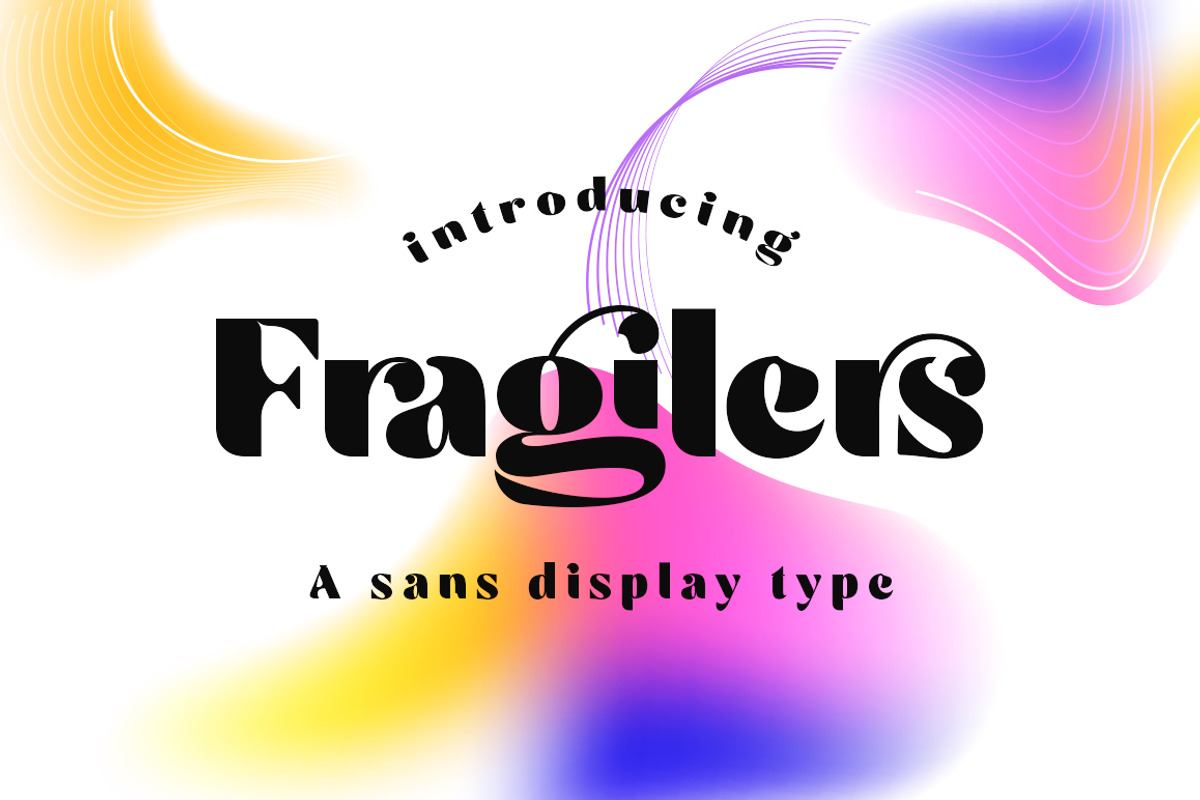
Fragilers Sans Display Free Download
Fragilers Sans Display Font Free Download
Fragilers Sans Display Font Free Download is a modern, bold typeface designed for high-impact display use. With its sharp lines and sleek structure, this font is perfect for headlines, logos, posters, and other designs that require strong visual presence. Its clean and geometric design makes it highly readable, while its boldness gives your designs an edge.
Ideal for projects where you want to make a statement, Fragilers works perfectly for both digital and print media. Whether you’re working on branding, advertising, or creative content, this font brings a contemporary, stylish touch to your typography.